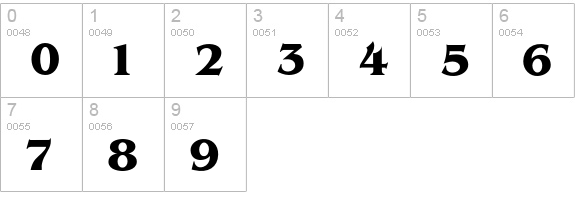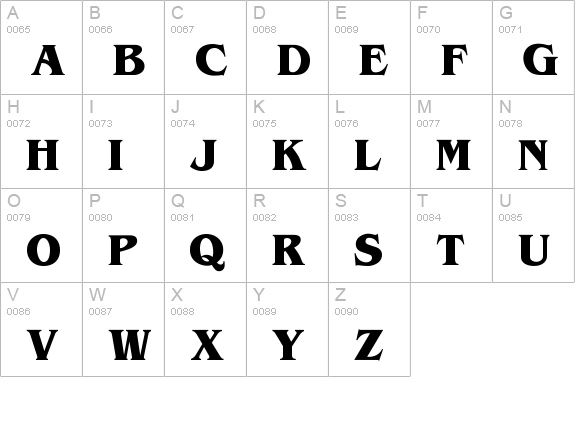
BenguiatBold Font Details
BenguiatBold is a striking and versatile display font that commands attention with its bold and distinctive letterforms. Designed with a touch of elegance and a hint of vintage flair, this typeface is perfect for making a statement in your designs. Whether you're creating eye-catching headlines, posters, or branding materials, BenguiatBold is sure to leave a lasting impression. And the best part? BenguiatBold is available for free download at FontsMarket.com, where you can easily access this premium font at no cost. Don't miss out on the opportunity to enhance your projects with the bold and captivating style of BenguiatBold. Download it now and elevate your designs to the next level!